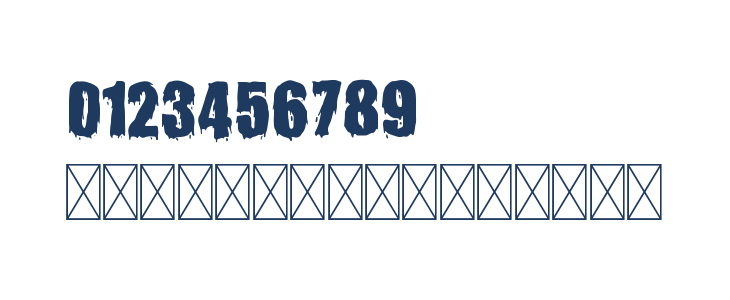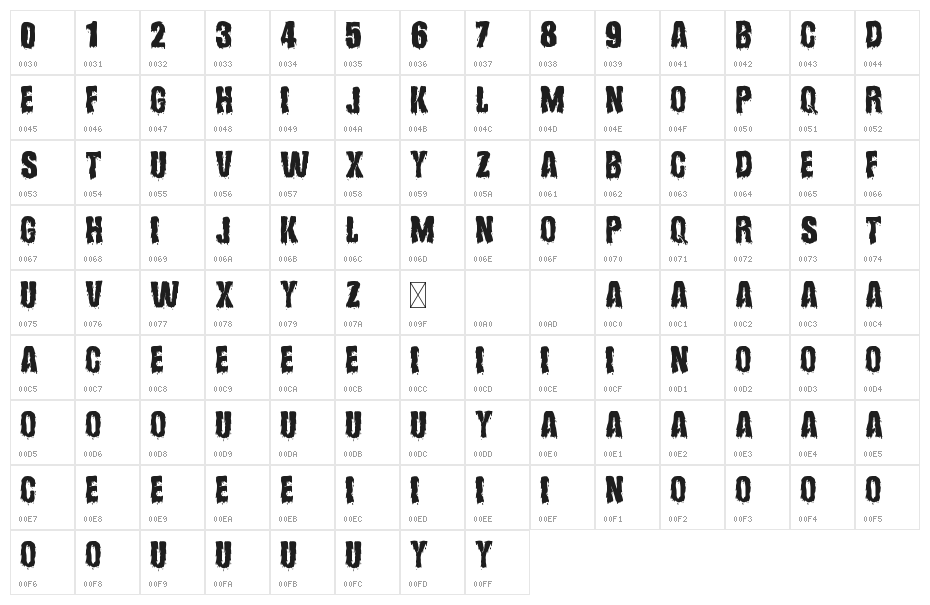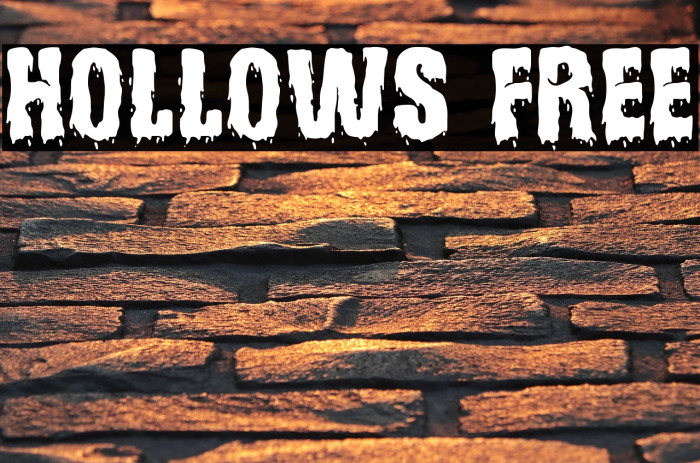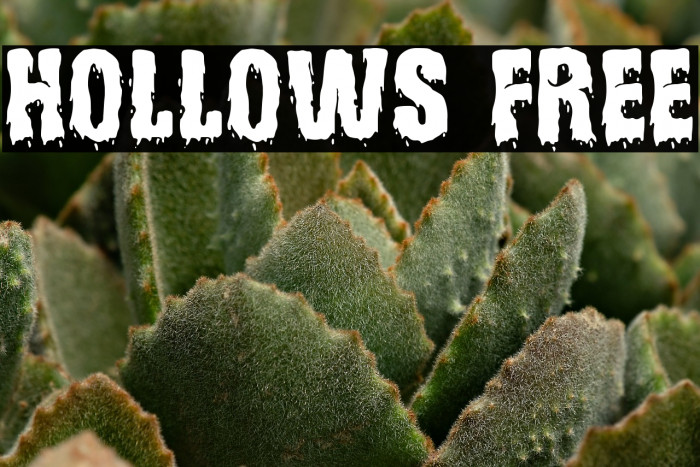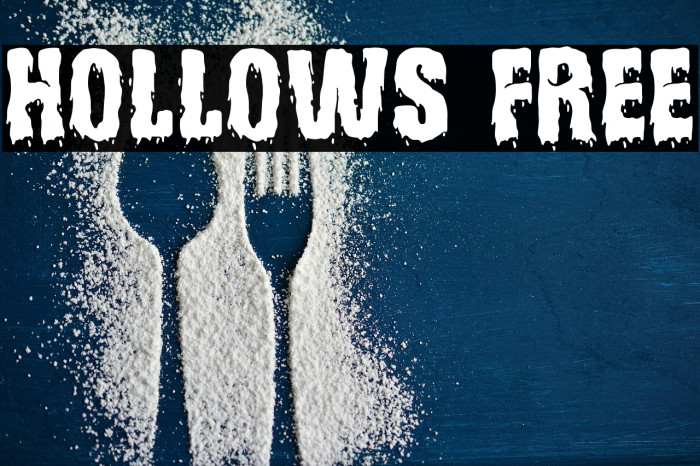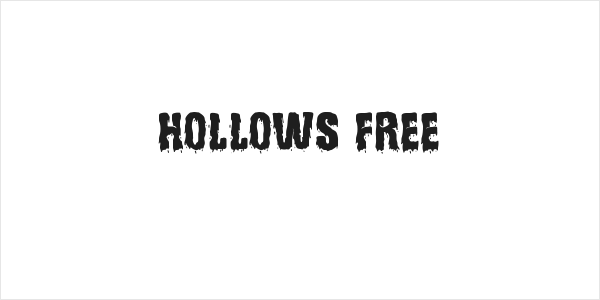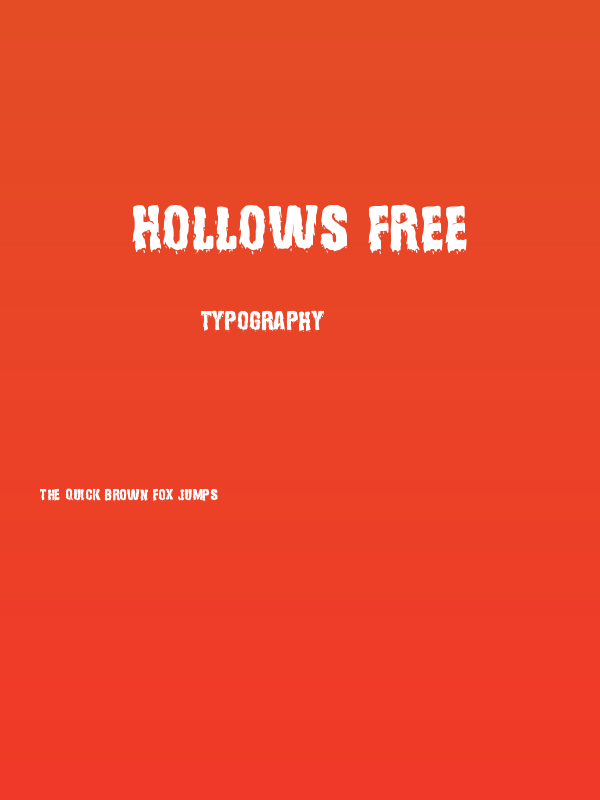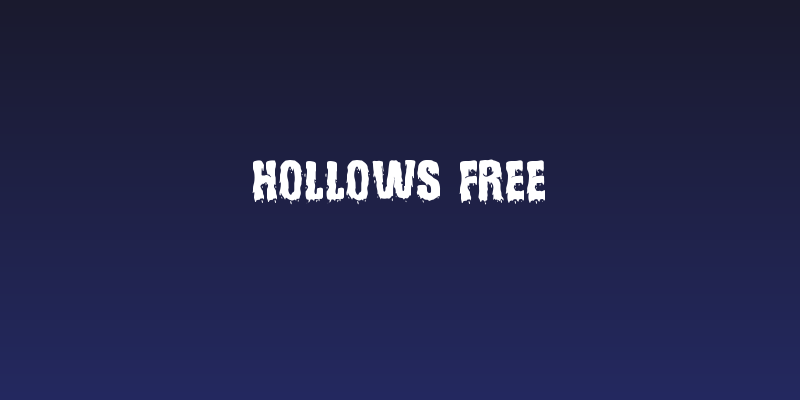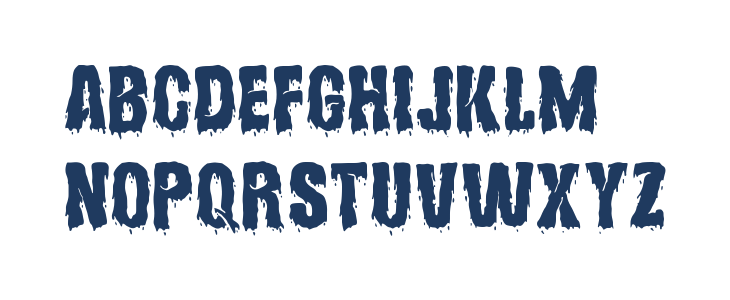
Hollows Free Font
Hollows Free Description
This font features a bold and dramatic style, characterized by its dripping, irregular edges that give it a horror or Halloween-themed appearance. The uppercase and lowercase letters maintain a consistent, heavy weight, creating a sense of urgency and intensity. The numbers and special characters follow the same stylistic approach, ensuring uniformity across all characters. The font's unique design makes it ideal for projects that require a spooky or eerie aesthetic, such as Halloween invitations, horror movie posters, or themed event signage. Its distinct appearance ensures that it stands out, making it suitable for decorative purposes where attention-grabbing text is essential.
| Proposed Projects | Halloween invitations, horror movie posters, themed event signage. |